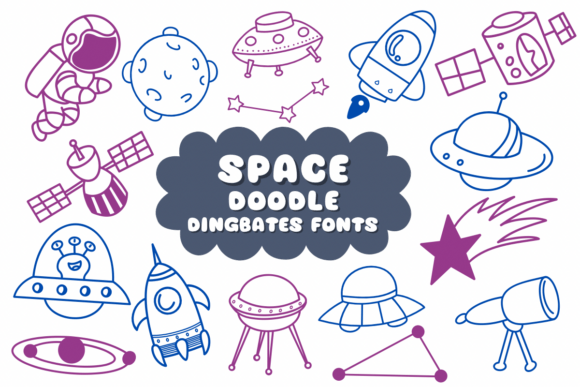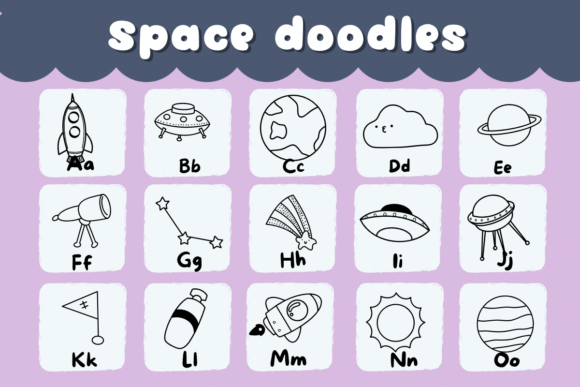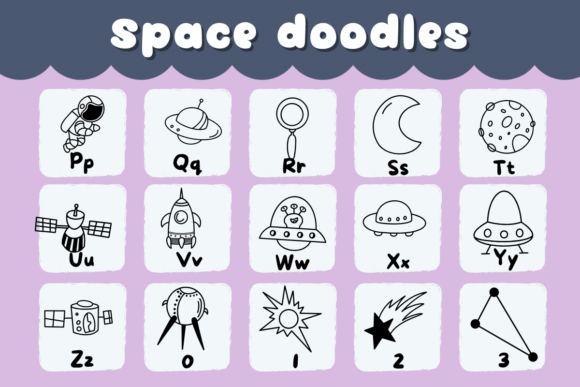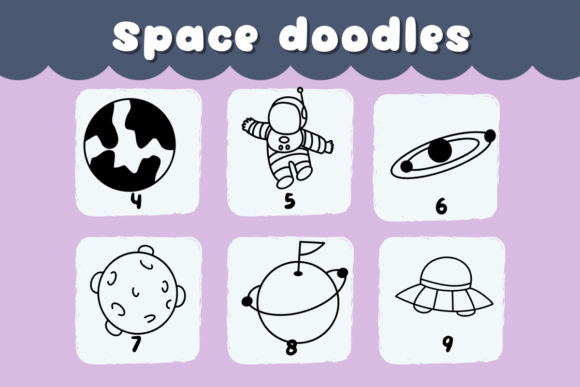
Space Doodles Font
About the Space Doodles Font
Elevate your designs with Space Doodles Font, a font that combines sophistication with readability. Space Doodles is dingbats font with a sketched theme. This font can enhance your creative projects such as wedding invitaations, DIY, crafts, decorations, logos, and many other creative ideas.
Space Doodles Font Usage Examples
Space Doodles Font Example